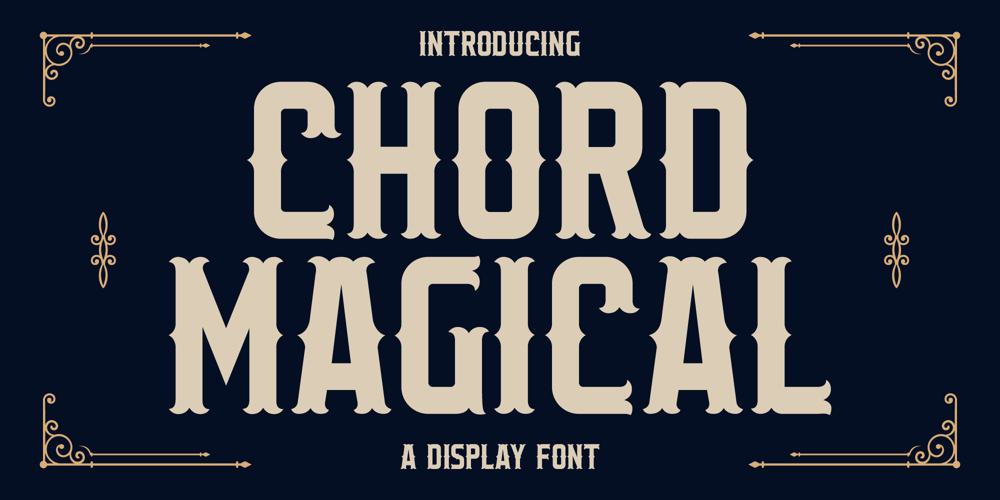
Chord Magical
Chord Magical font
Chord Magical Font Family was designed by Heru Utama Putra and published by Letterena Studios. Chord Magical contains 2 styles and family package options. CHORD MAGICAL is a vintage typeface, inspired by old-school design. It is a more decorative typeface by adding bold bifurcated serif on the letterforms. This font is a perfect choice for vintage or old-school themes. You can use this font for many purposes such as vintage logos, mugs, embroidery, prints, display, short text, packaging, cards, emblem, signage, and many more!